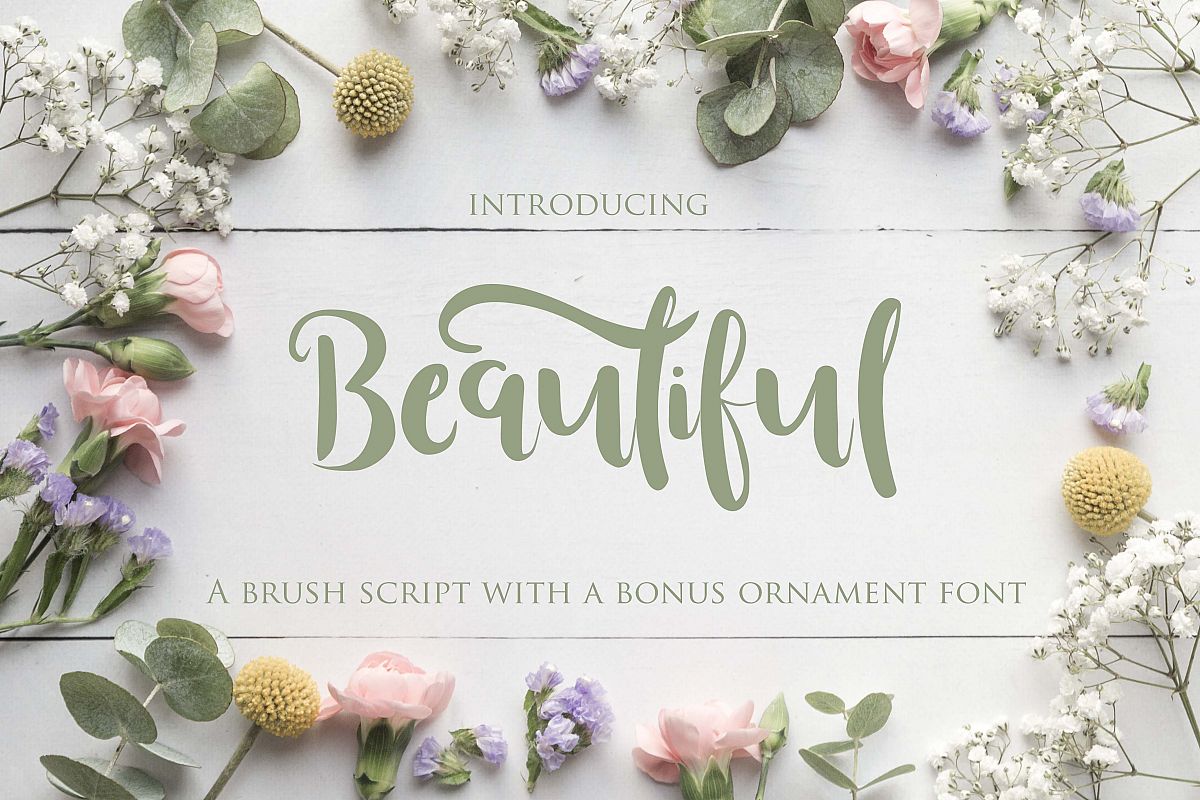
Beautiful Font with Bonus Ornament font
Beautiful - a brush font with a bounce baseline, and a bonus ornament font
European Languages covered: Albanian, Dutch, Danish, Estonian,
Finnish, French, German, Icelandic, Italian, Norwegan, Portugeuse,
Spanish, Swedish, Faroese, Irish Galic, Scottish Galic, Manx Galic,
Slovenian.
PUA coded.
Bonus Ornament "dingbat" font included.